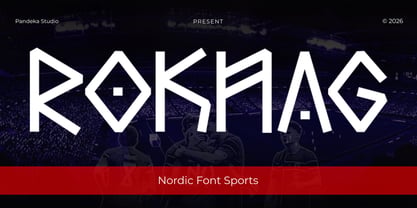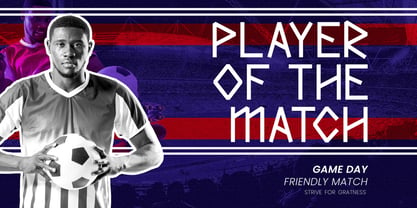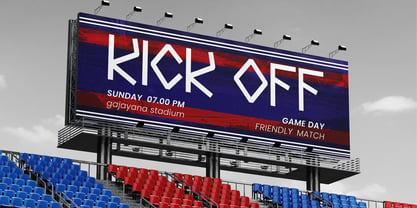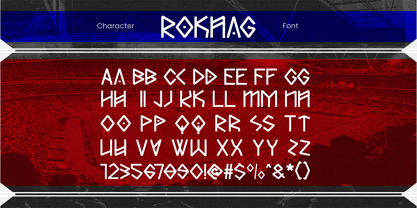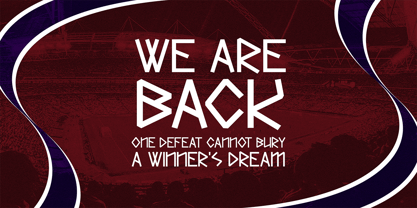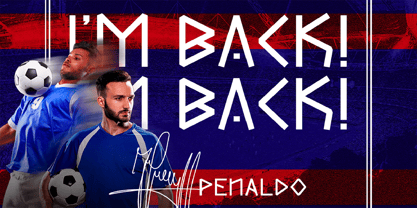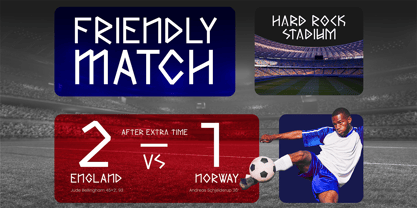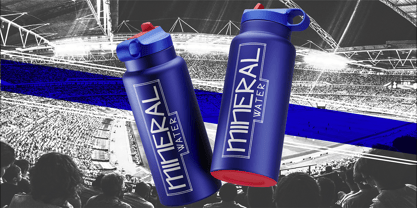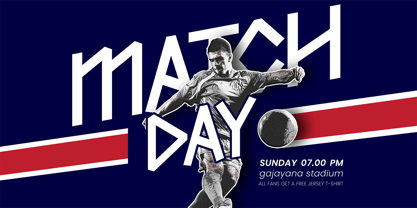
Roknag
The Roknag Font Family was designed by Sagara Nararya and published by Pandeka Studio. Roknag contains 1 styles. More about this family
Roknag is a bold Nordic inspired sport font crafted for powerful athletic branding and competitive visuals. Featuring sharp angular letterforms, geometric construction, and a modern Scandinavian aesthetic, it delivers a strong, energetic presence while maintaining excellent readability across both print and digital designs.
Available in 1 style: Regular, Roknag works seamlessly for sports branding, football graphics, esports visuals, team logos, event posters, stadium signage, jersey numbers, tournament promotions, product packaging, social media graphics, website headers, merchandise, editorial layouts, and modern branding projects. It also includes multilingual support, making it suitable for creative projects worldwide.
• Full Character Set: Uppercase, lowercase, numbers, symbols, and punctuation